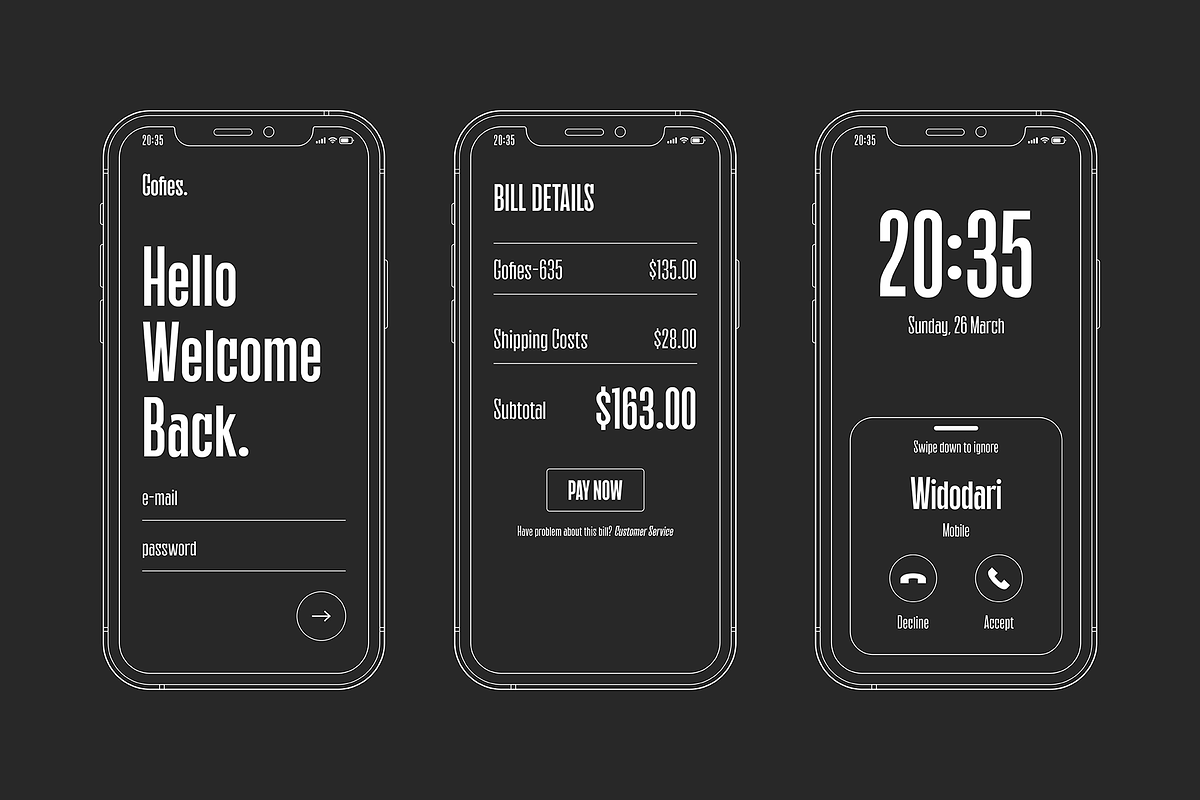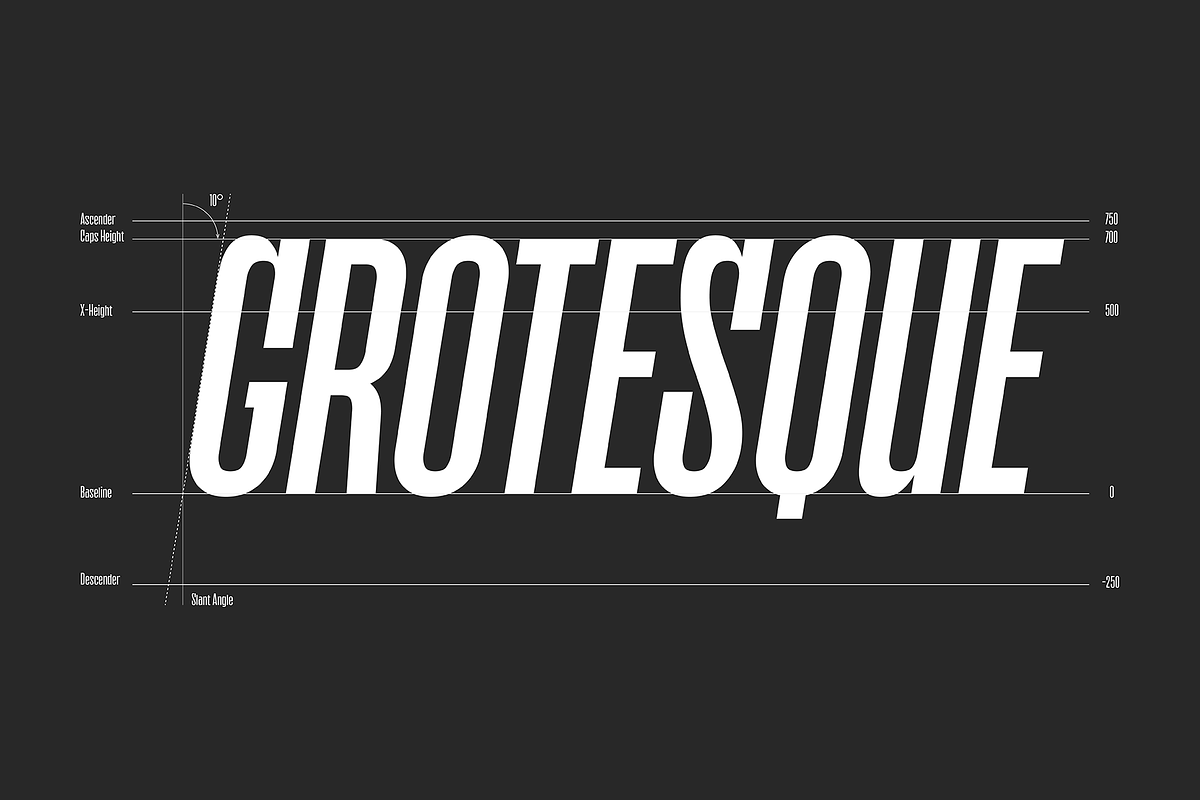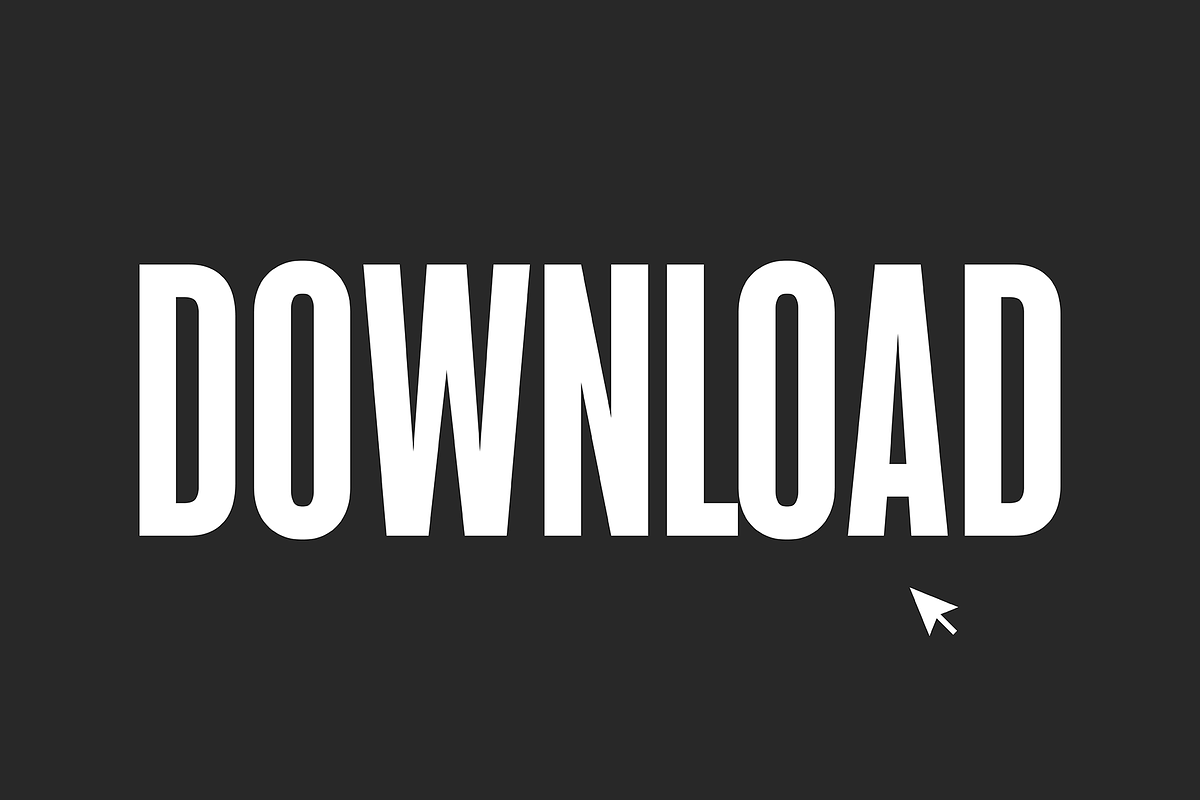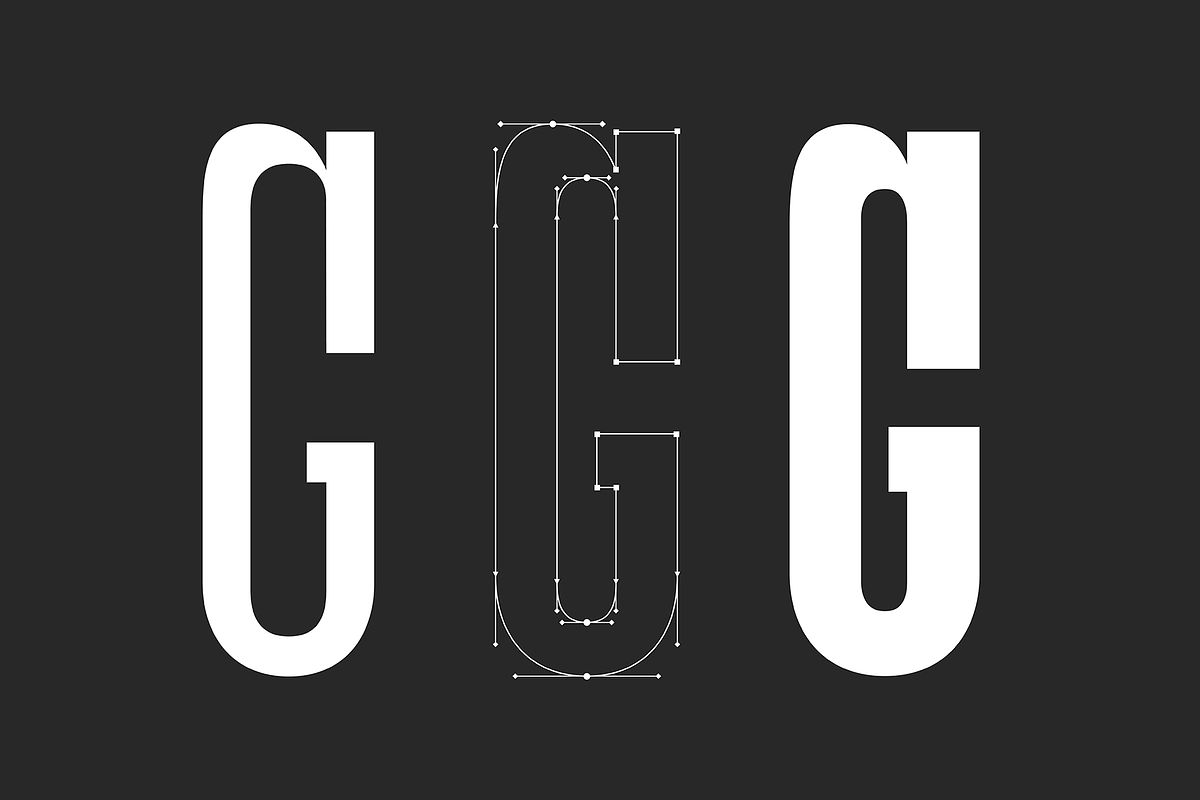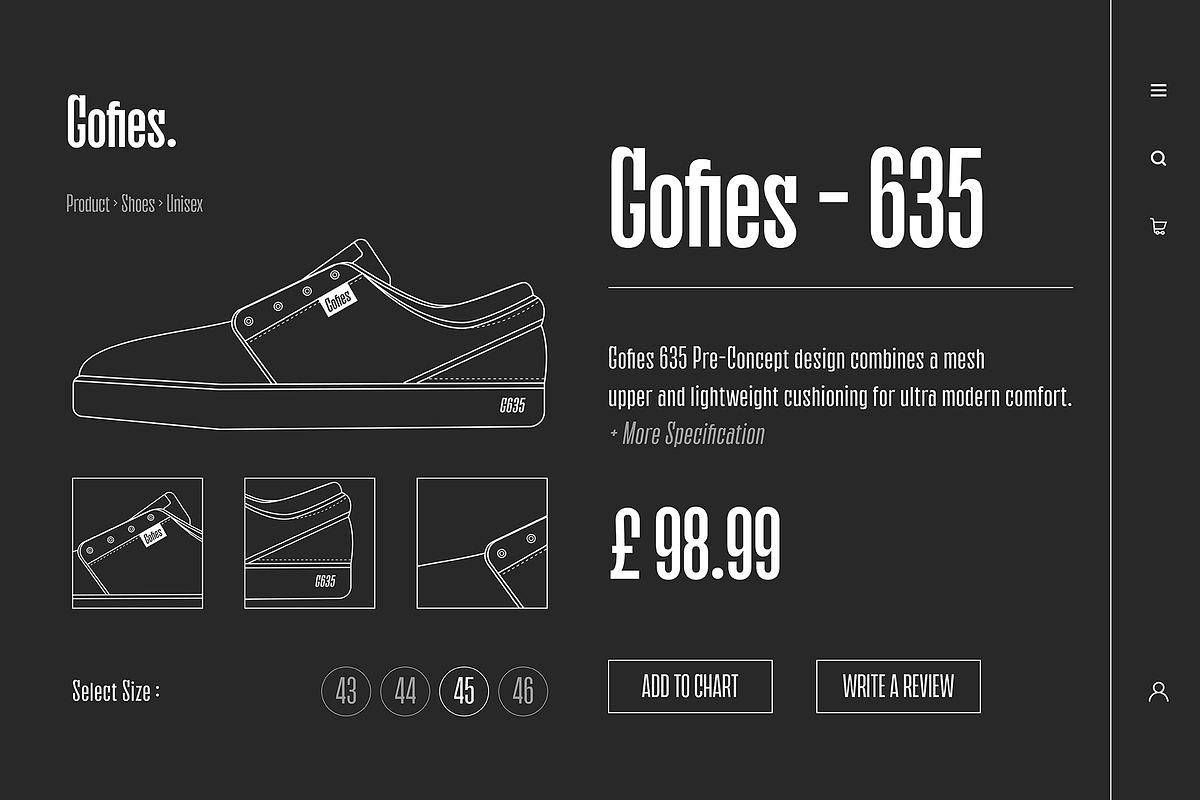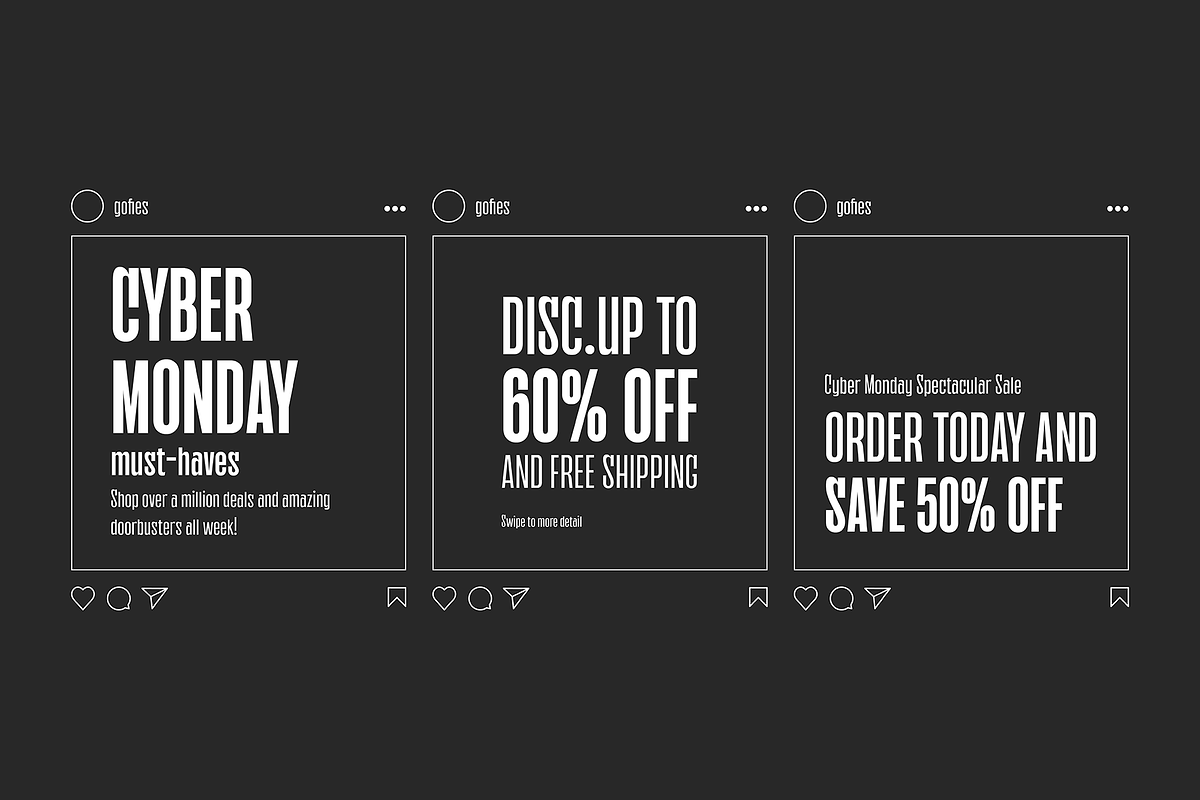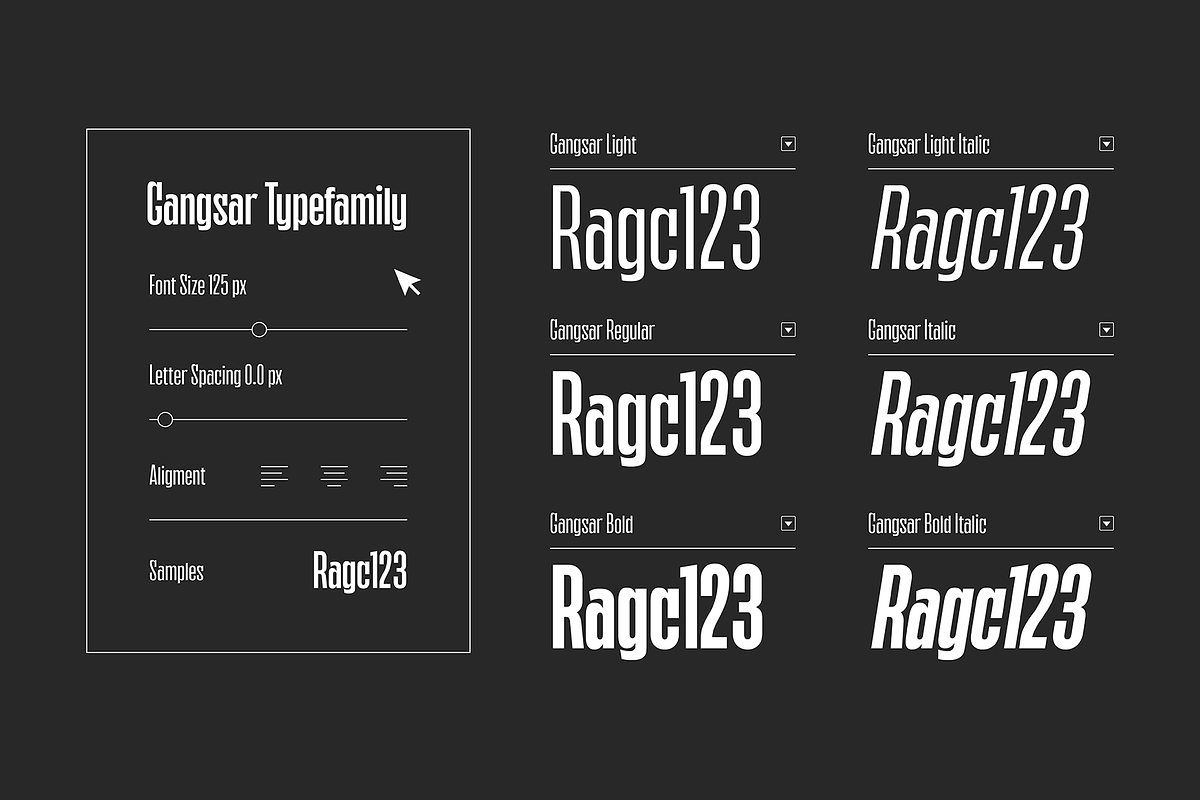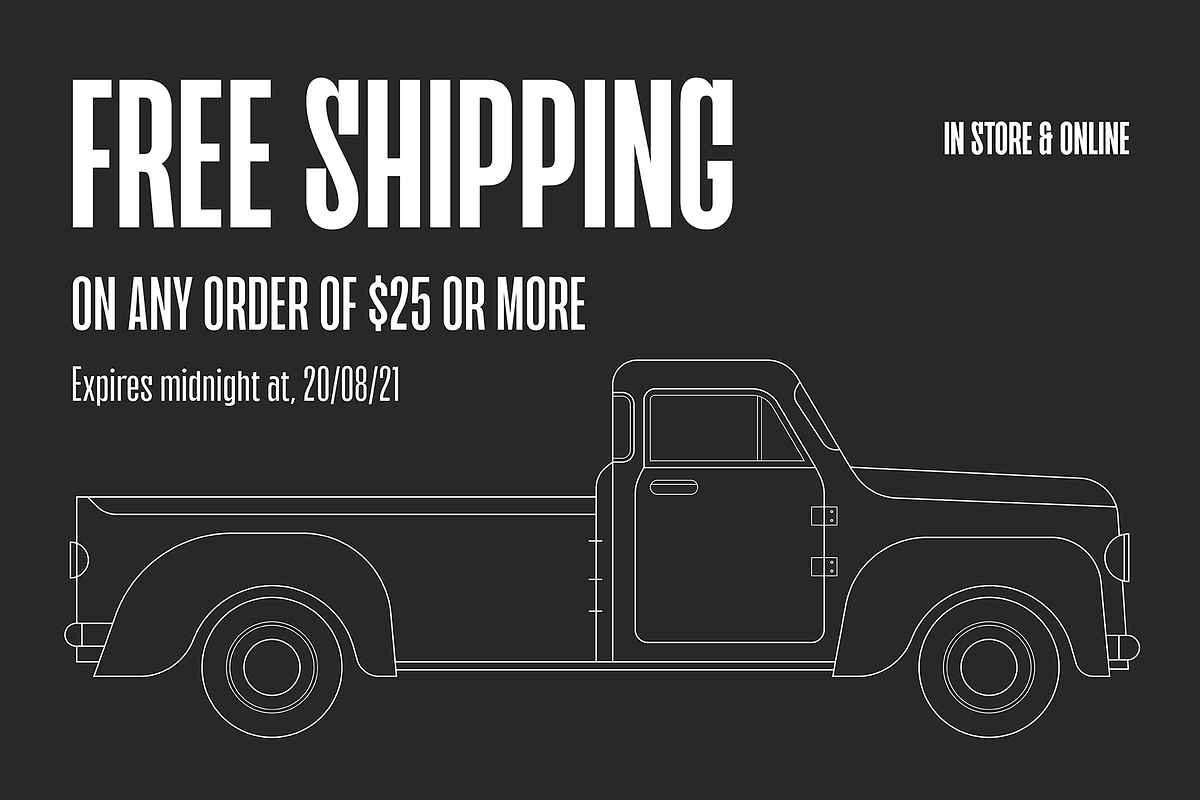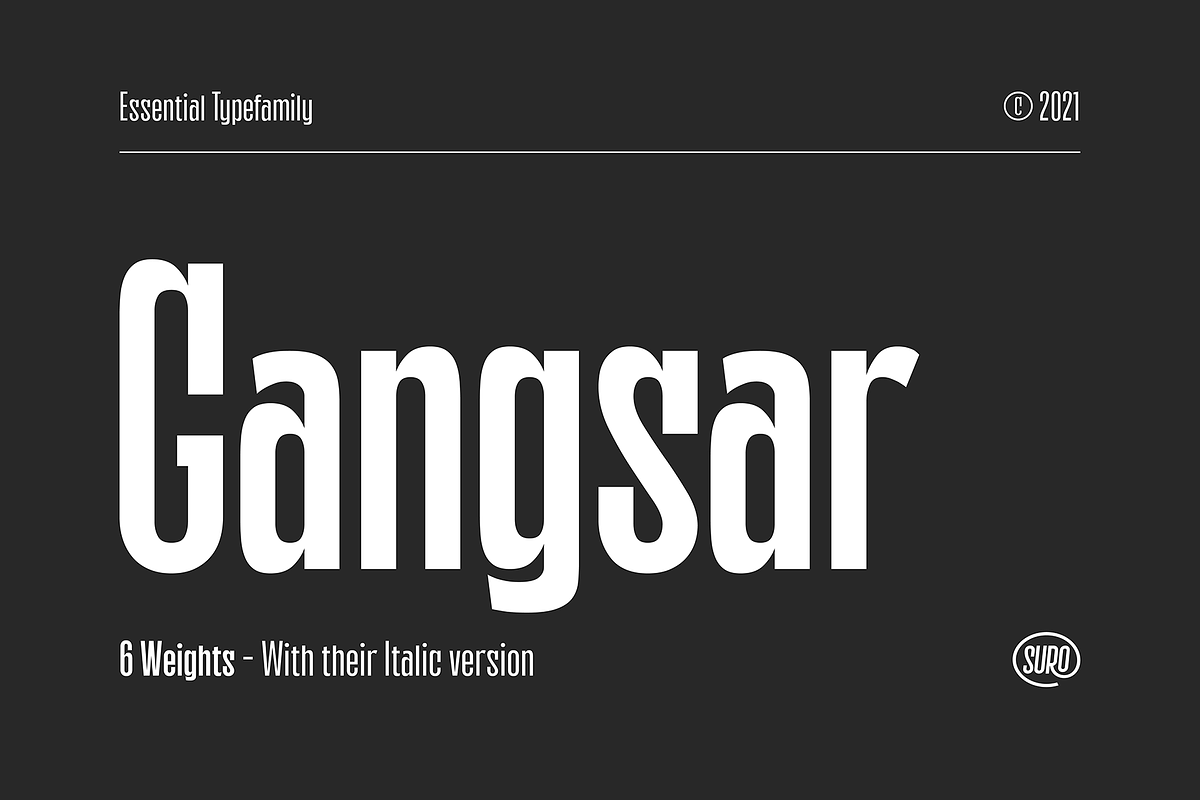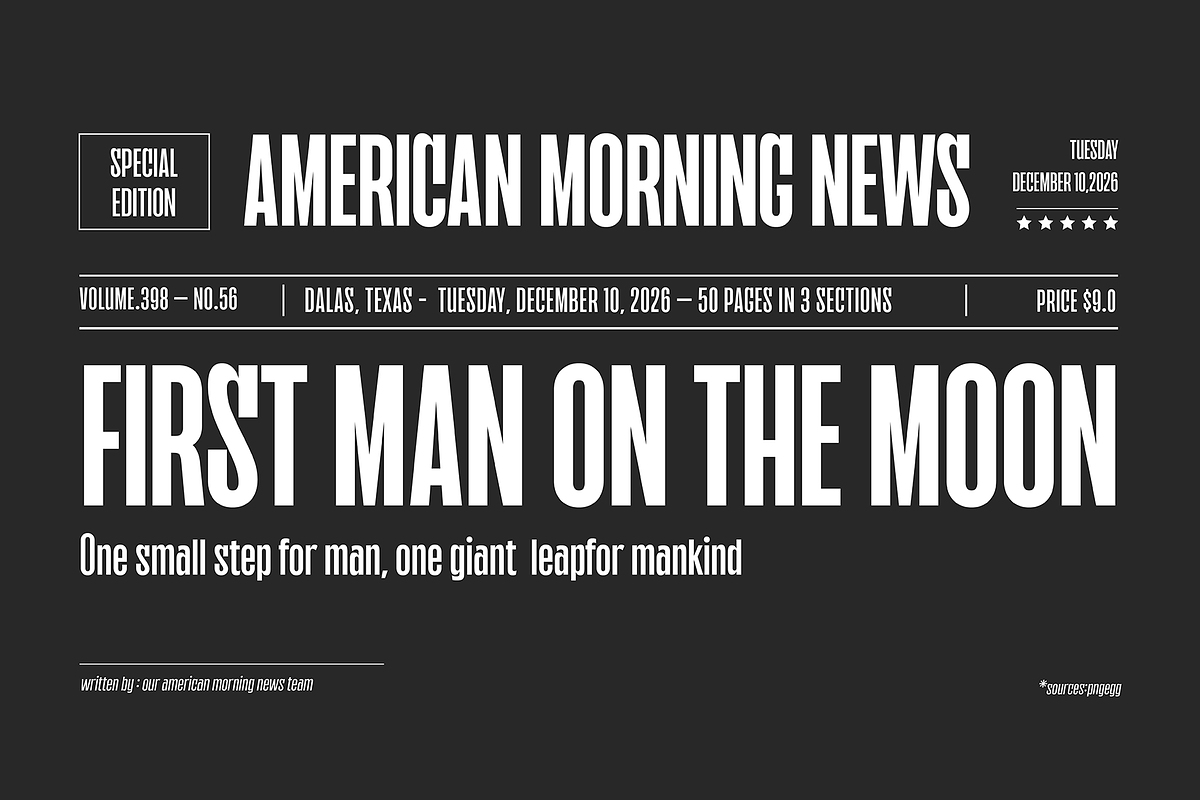
Gangsar is a Condensed typefamily, Inspired by Enge Hermes (1935). Having 6 weights including italic version, strong character, Sharp edges and proportional contrast. The typeface is versatile and can be successfully used in Branding, Posters, Magazines, Websites, Mobile Apps, etc.*